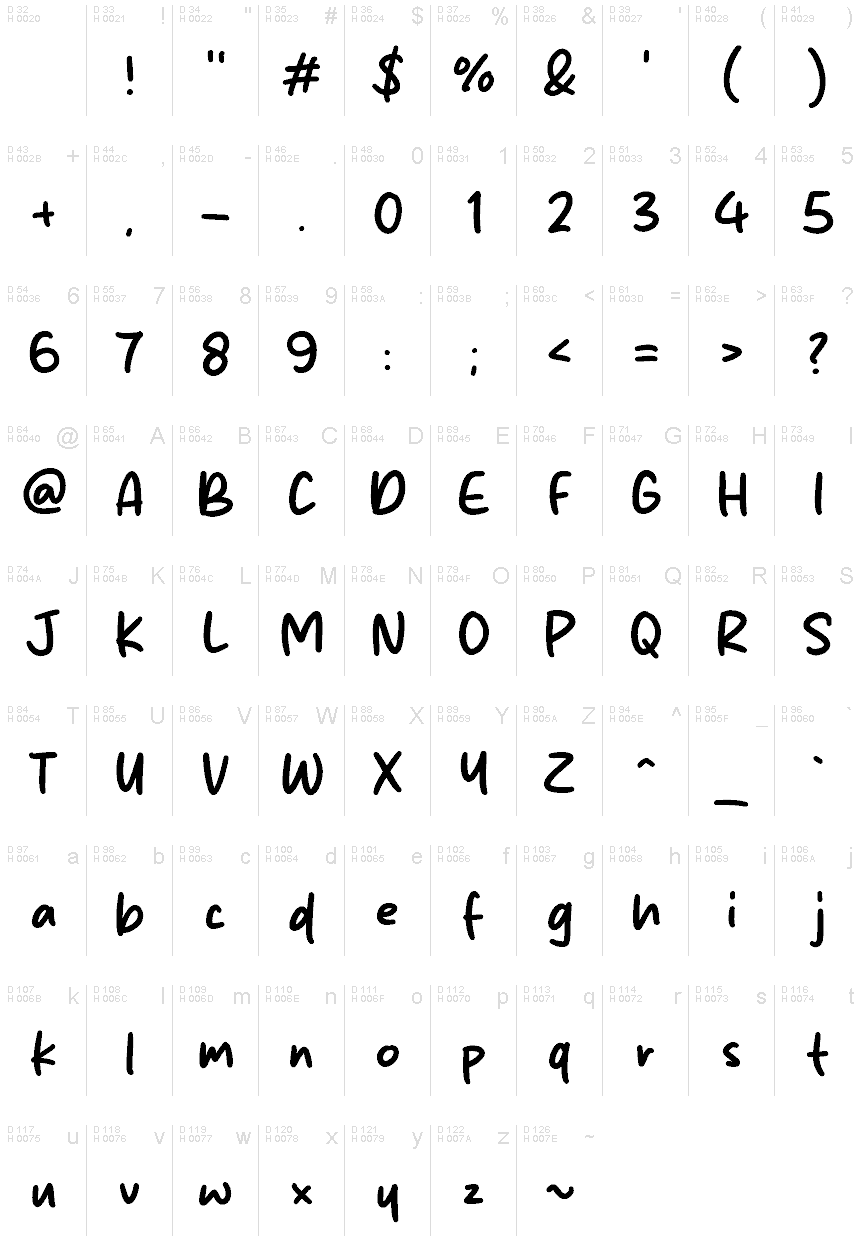
Straight Town
Straight Town font by MJType is a free handwritten font with a casual and relaxed style. Energetic, expressive, and truly playful, it offers vibes identical to actual handwriting but with crisp designs that give you uniquely beautiful characters.
Use it for quotes, picture captions, social media posts, birthday cards, nursing home records cover page titles or grocery stores signages.